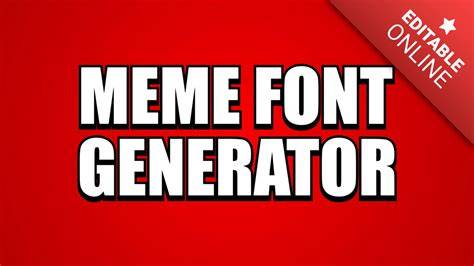
The Latest And Greatest Meme Fonts Of 2023
Meme Fonts: The Basics
Meme fonts are a fun, creative way to express yourself online. Whether you’re creating a meme for a friend or for a project, it’s important to choose the right font. In 2023, the trendiest fonts have an added element of fun with bold colors and unique designs. Meme fonts are also becoming increasingly popular for everyday use, as they can add a spark of creativity to a mundane task.
Meme fonts come in a variety of styles, but the most popular ones are those that are bold and eye-catching. There are many websites out there that offer free meme fonts, but the best ones come with a price tag. These paid fonts come with additional features such as customizable colors and extra features like drop shadows. Some of the most popular meme fonts of 2023 include Comic Sans, Impact, and Arial Black.
Creating Memes with Meme Fonts
When creating a meme with a meme font, it’s important to think about the message you want to convey. A good meme font should be easy to read and understand, but also unique and eye-catching. After choosing a font, you should consider the background and colors you will use. For example, if you’re creating a meme about a political issue, you might want to use a dark background with bold colors.
Once you’ve decided on the font and background, it’s time to create your meme. Most meme font websites offer a variety of tools to help you create your meme. You can choose from a variety of text options, including italics, bold, and underlined. You can also customize the colors and add special effects such as drop shadows. Once you’ve created your meme, you can share it with your friends on social media or save it to your computer.
Using Meme Fonts in Everyday Life
Meme fonts can be used to add a bit of fun to everyday tasks. For example, you could use a meme font to create a unique to-do list for the day, or to make a list of tasks for a group project. Meme fonts can also be used to create unique designs for business cards or other materials. You can even use meme fonts to create unique signs for your home or office.
Meme fonts are also becoming increasingly popular for everyday use. For example, you can use a meme font to create unique designs for clothing or accessories. You can even customize your computer desktop with a meme font to make it more fun and interesting. The possibilities are endless when it comes to using meme fonts in everyday life.
Meme fonts are a great way to add a bit of fun and creativity to your projects. Whether you’re creating a meme for a friend or for a project, it’s important to choose the right font. In 2023, the trendiest meme fonts are bold and eye-catching, with extra features such as customizable colors and drop shadows. Meme fonts can also be used to create unique designs for everyday tasks, such as creating to-do lists or making signs for your home or office. So if you’re looking for a way to add a bit of fun and creativity to your projects, try out some of the newest meme fonts of 2023!